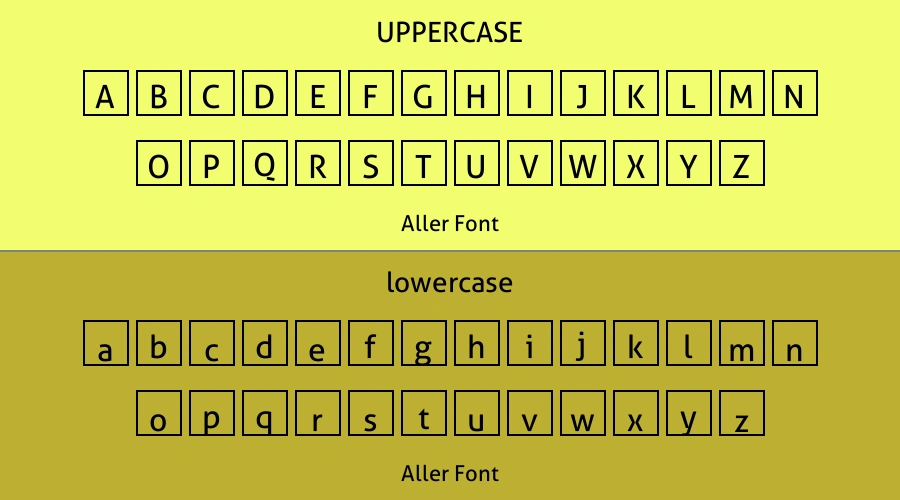
About Aller Font
Aller Font embodies typographic excellence through its masterful combination of consistent rhythm and textural richness. Created for packaging hero, this typeface delivers exceptional distinctiveness and quality certification across all applications. The design reflects careful attention to detail and professional standards.
Advanced capabilities include distinctive alternates and versatile tabular figures, giving designers creative control. When used in technical diagrams, Aller Font exhibits remarkable symbol integration. The harmonious balance between corner treatment and cultural relevance sets this typeface apart.